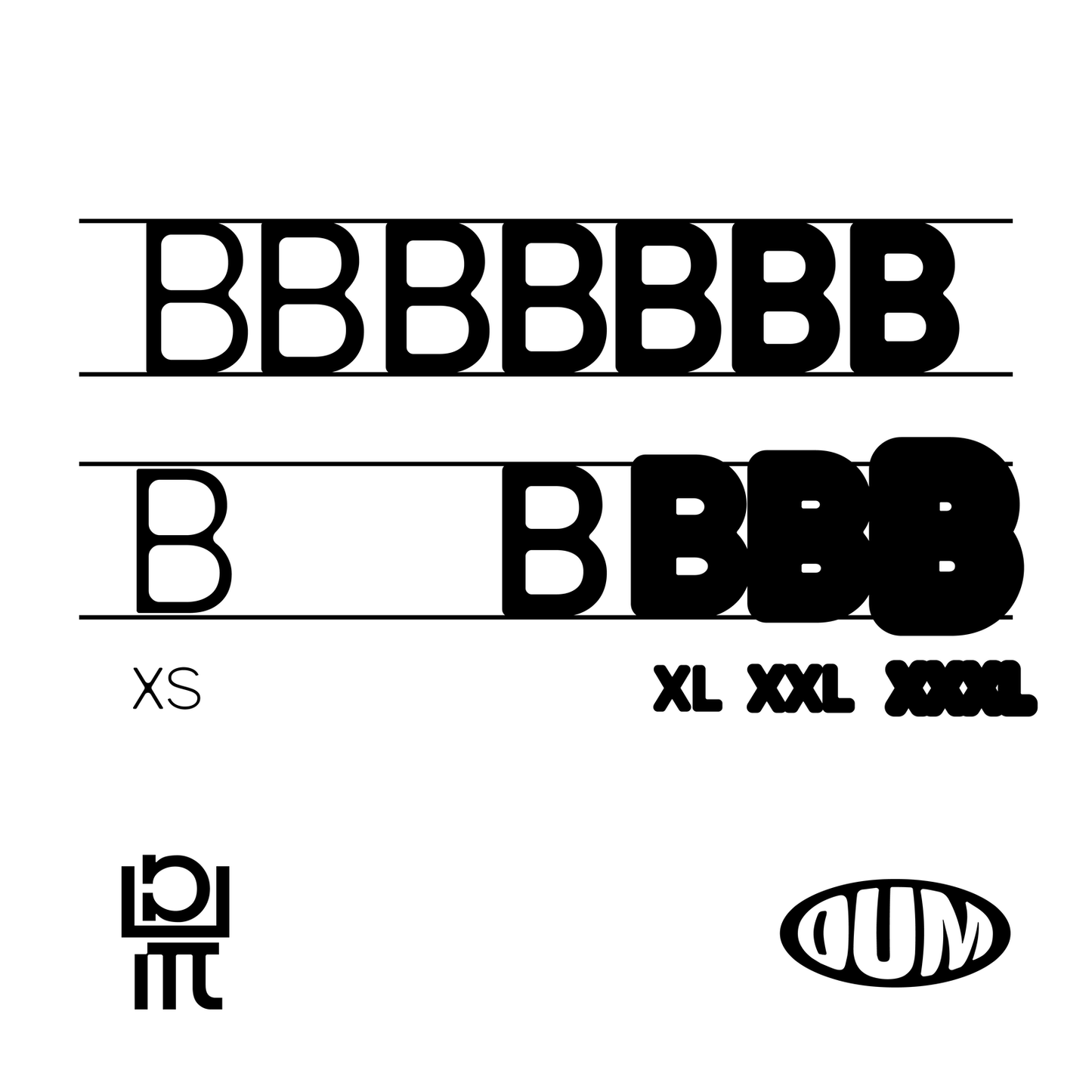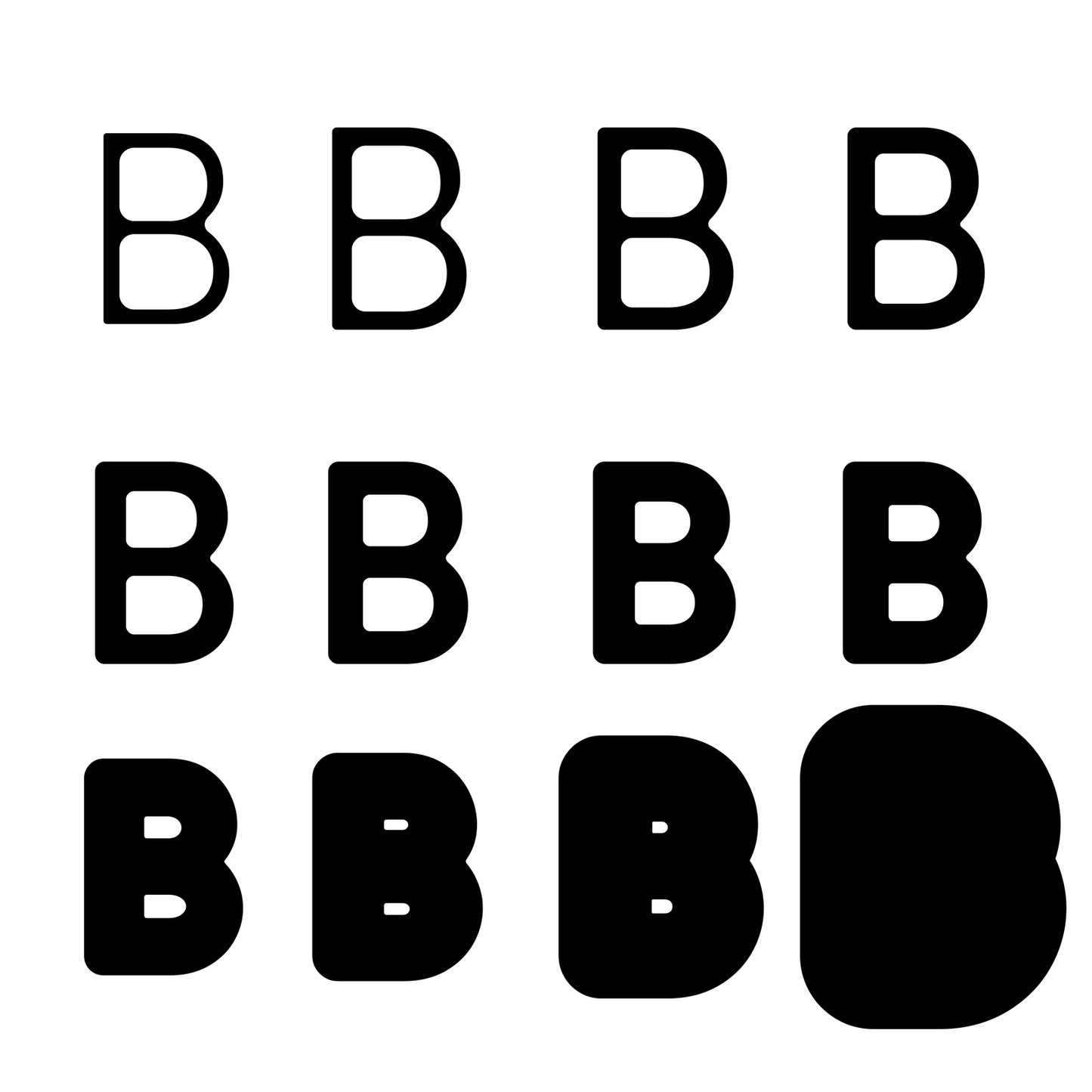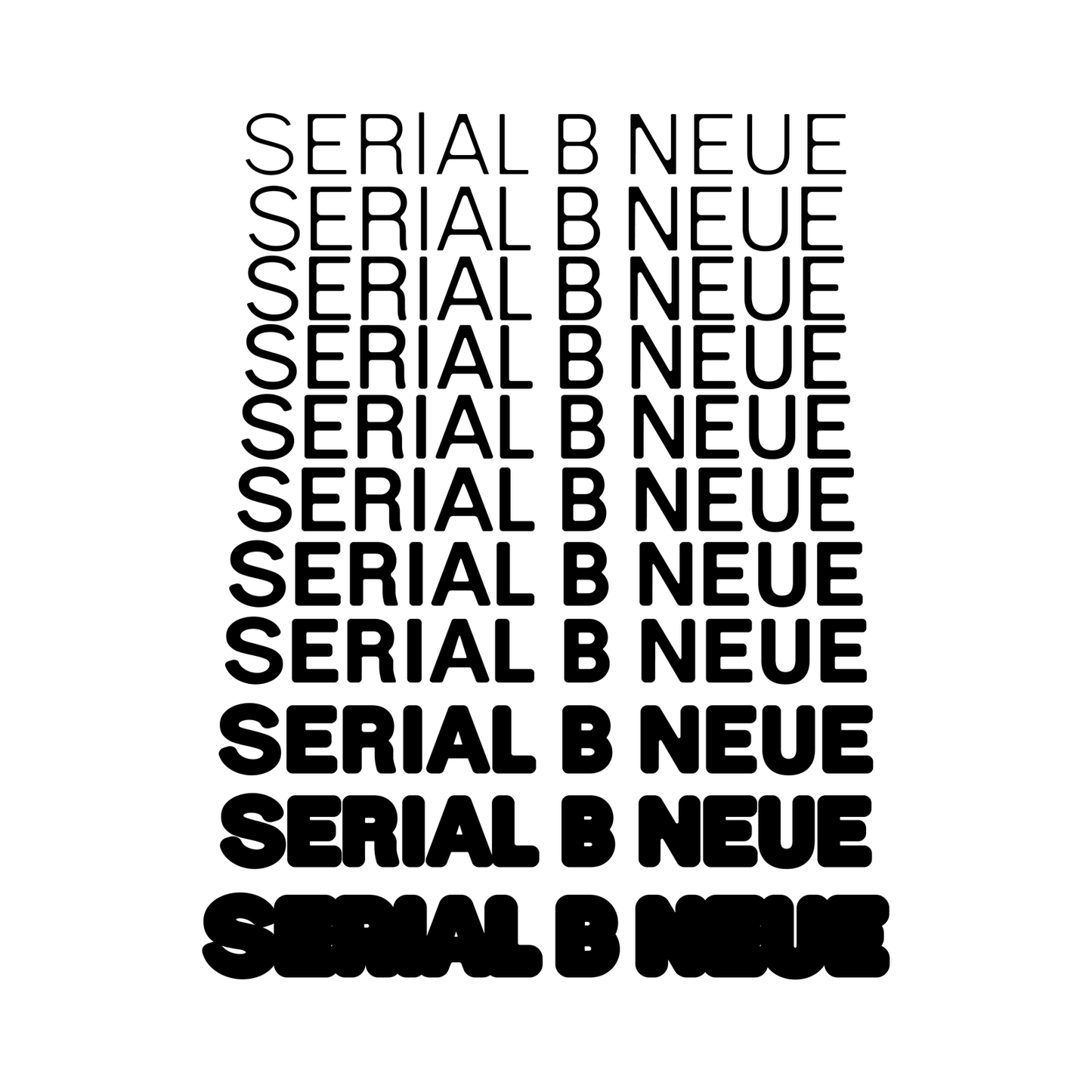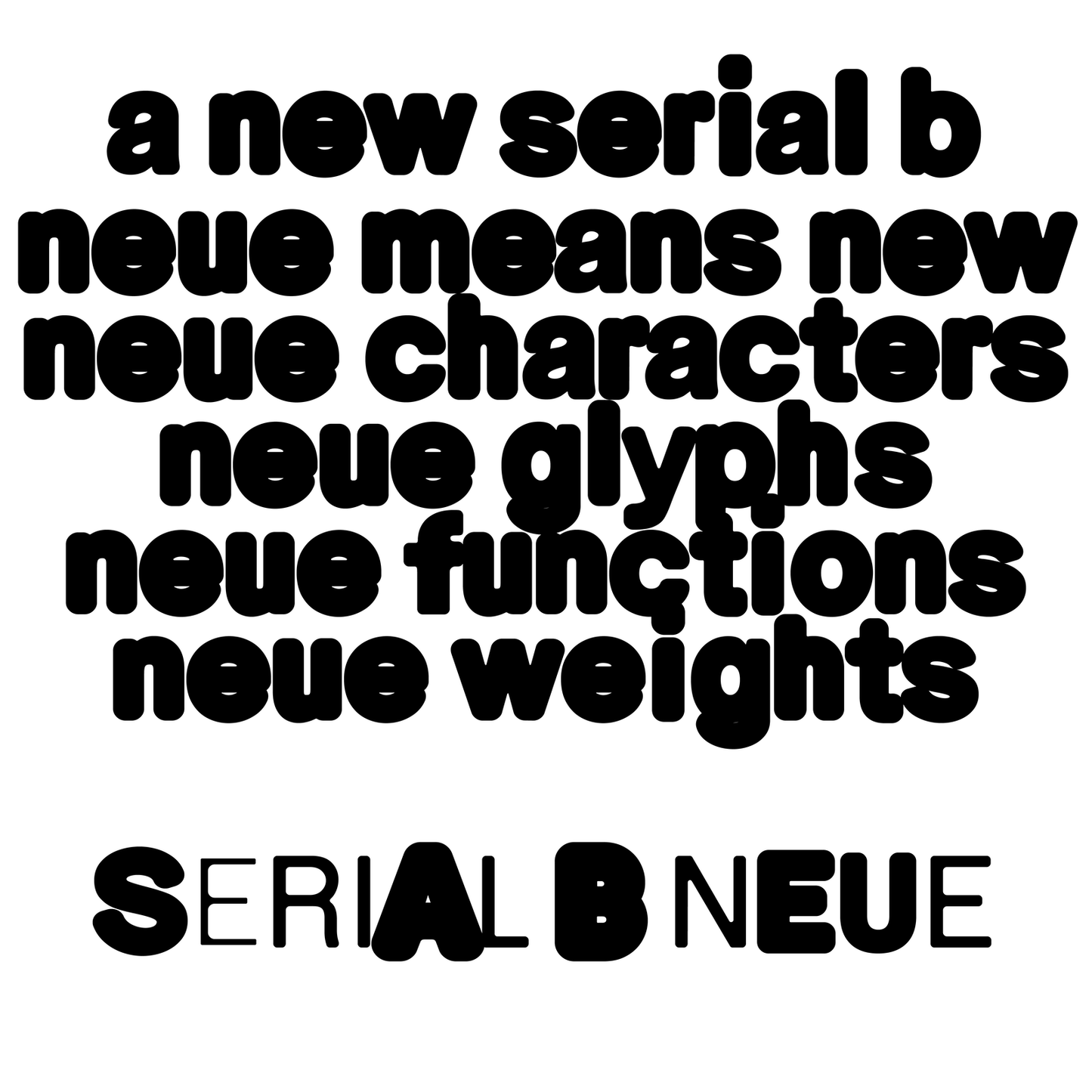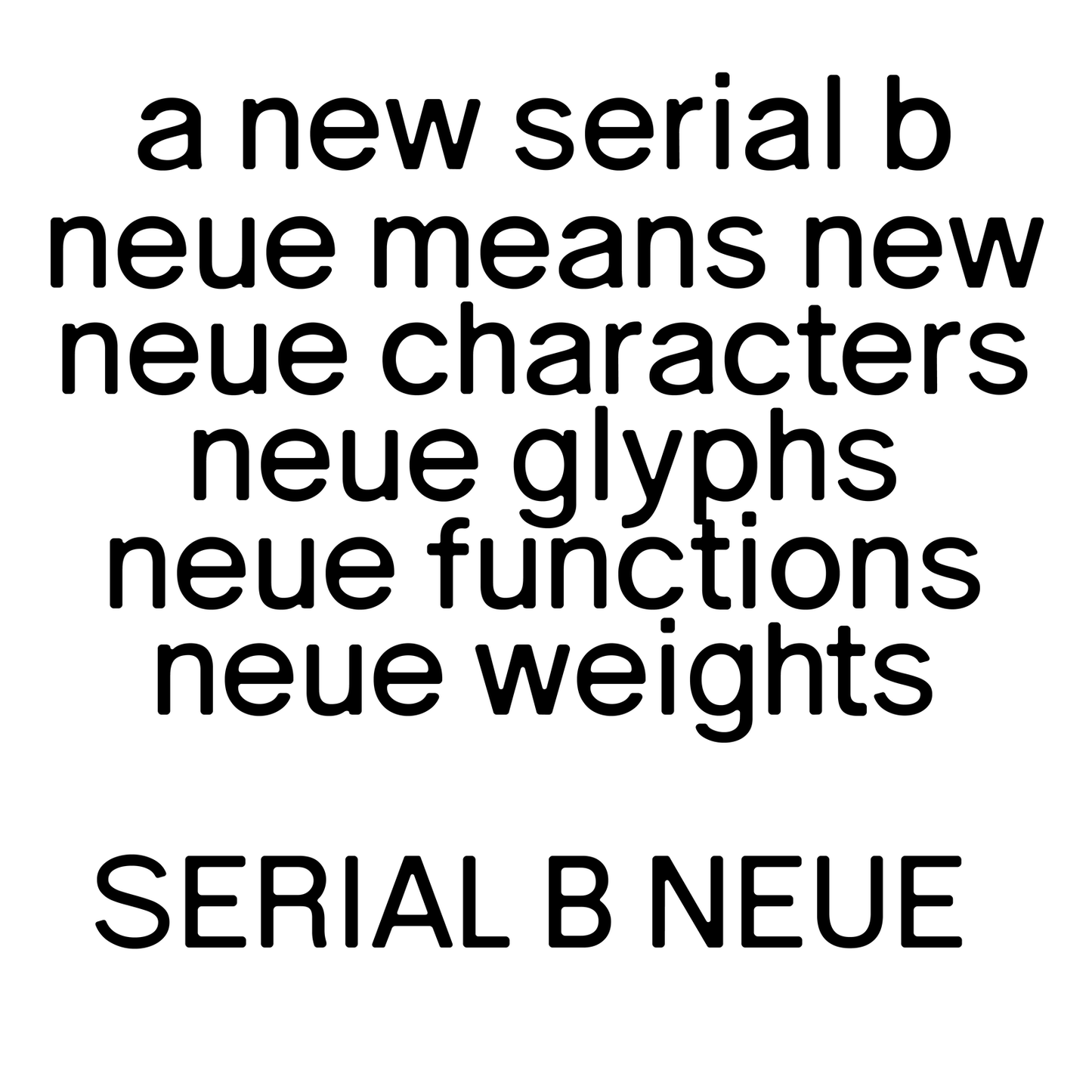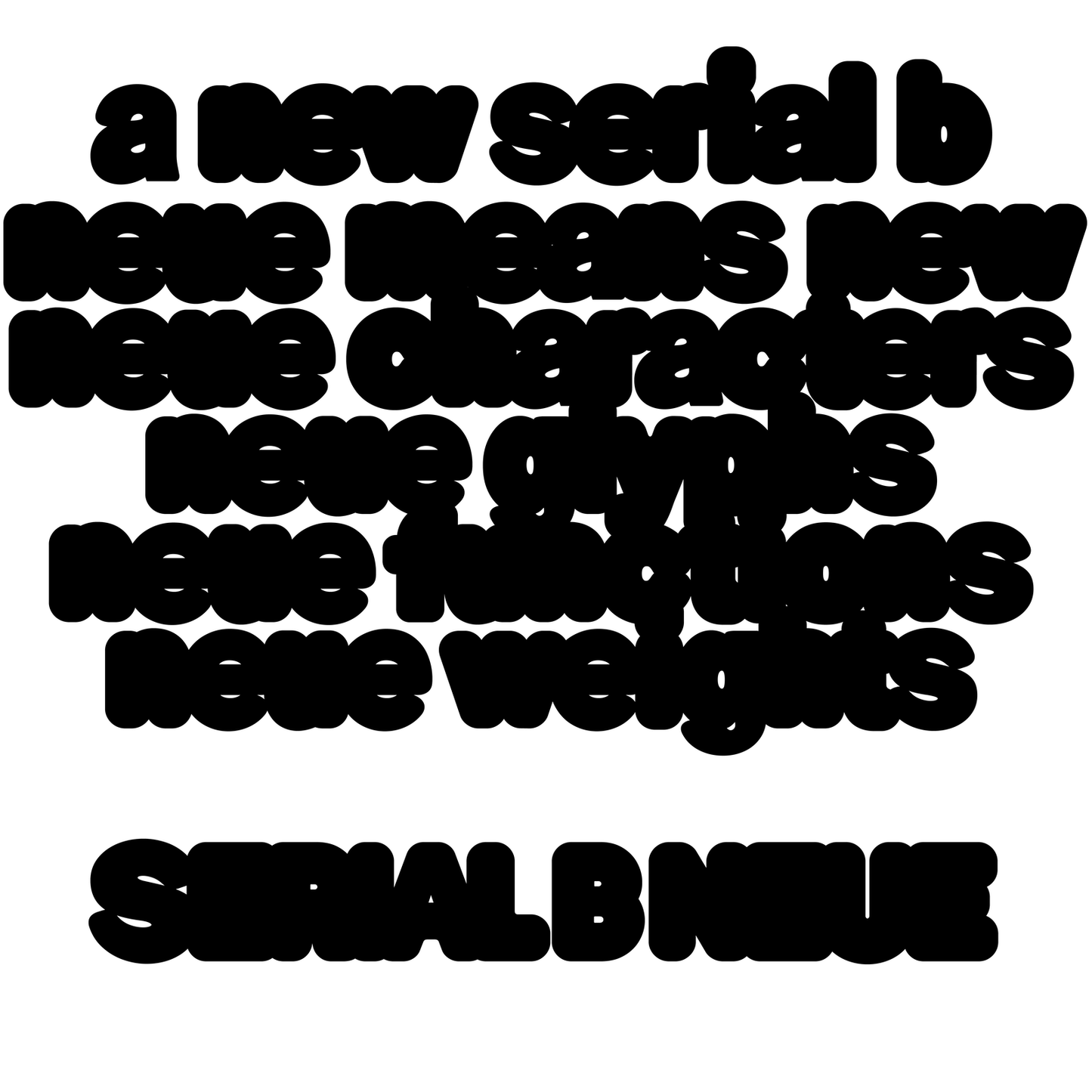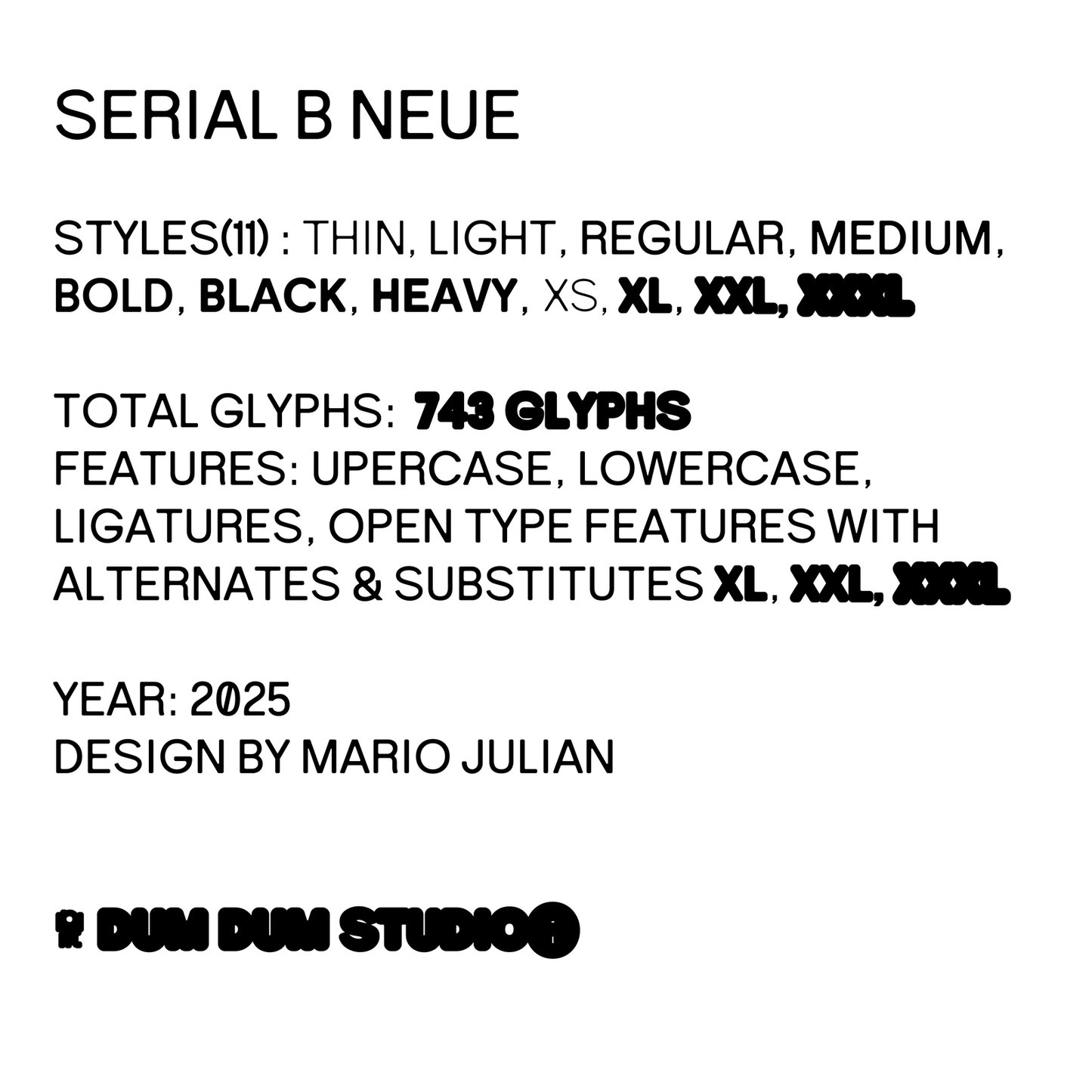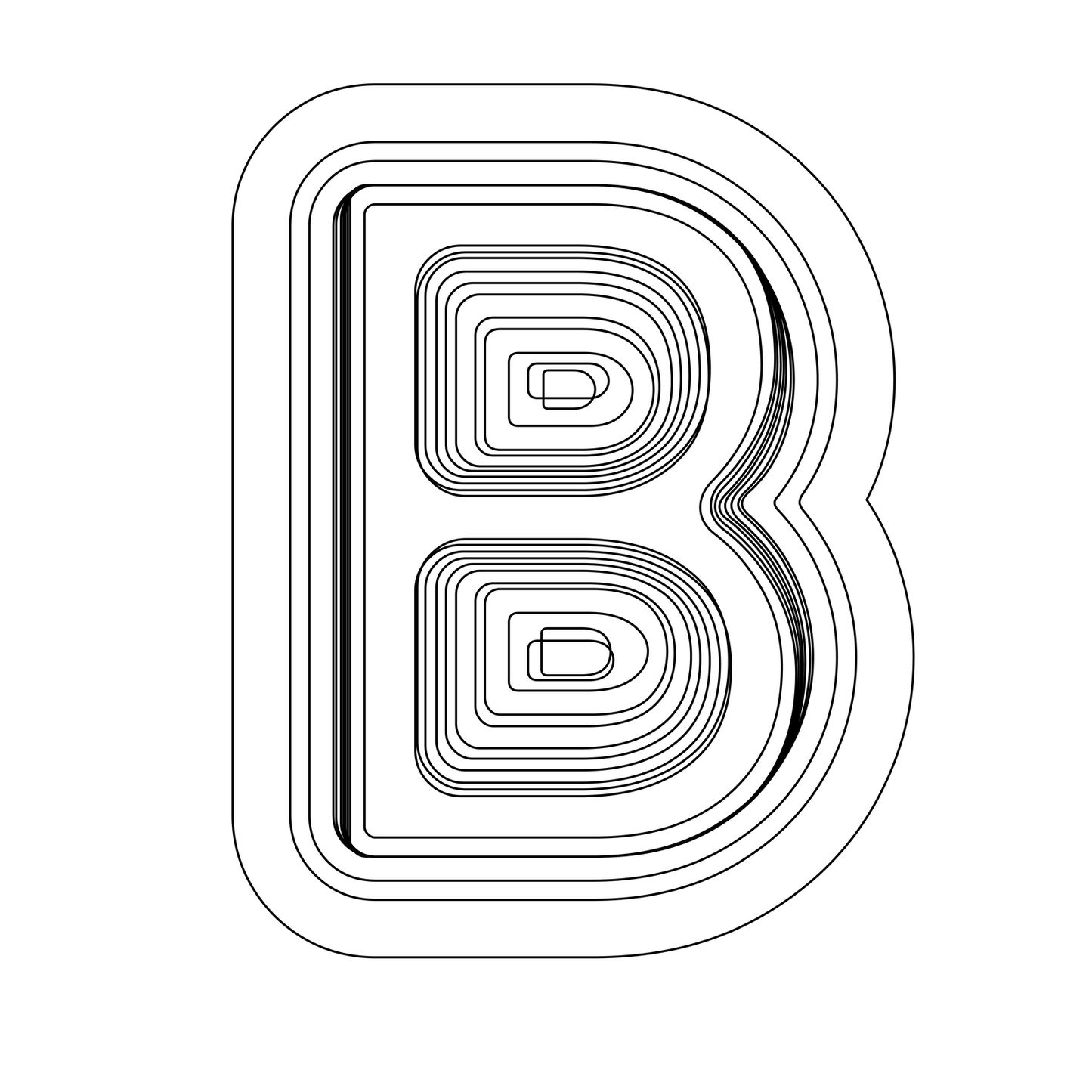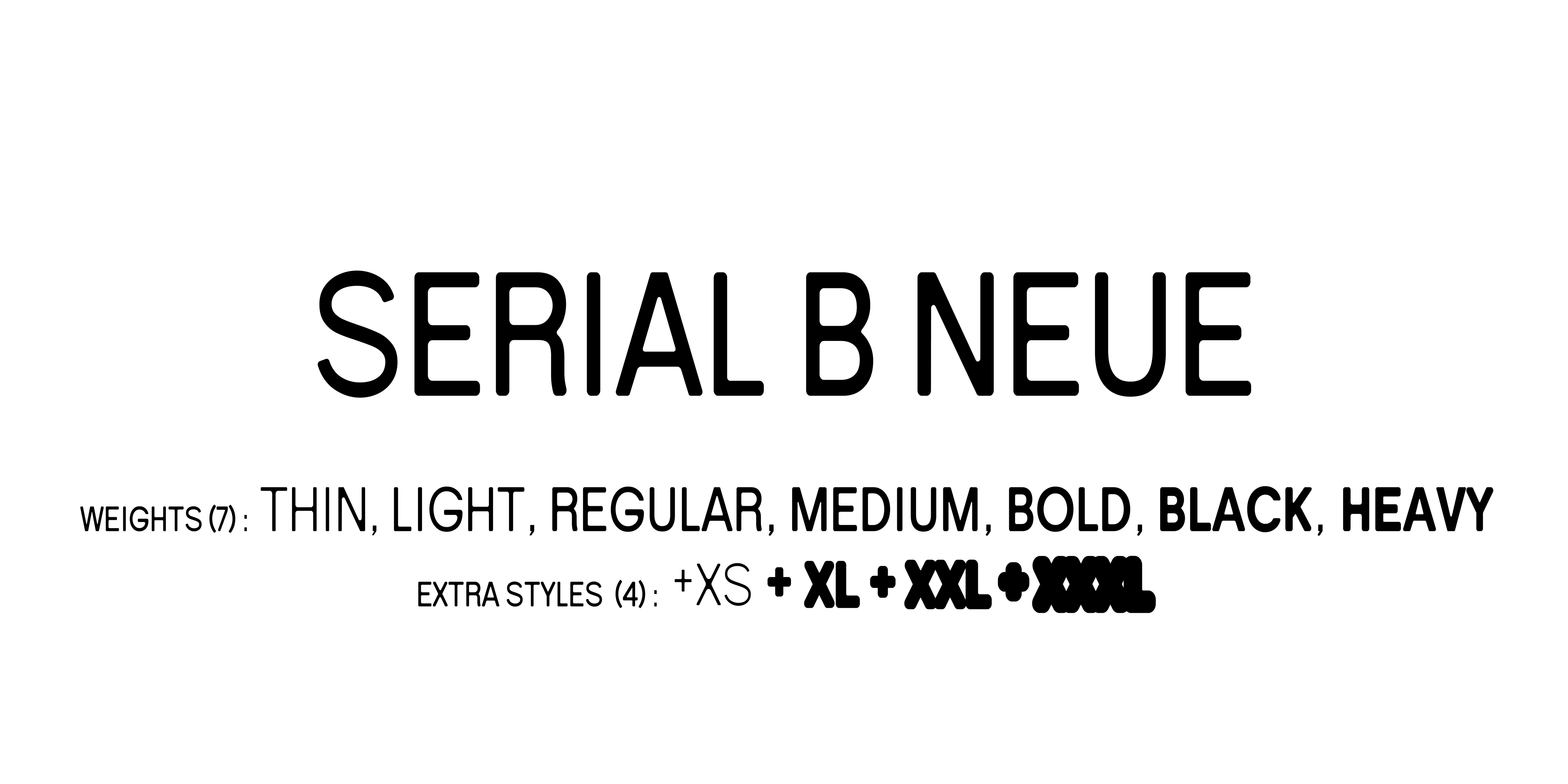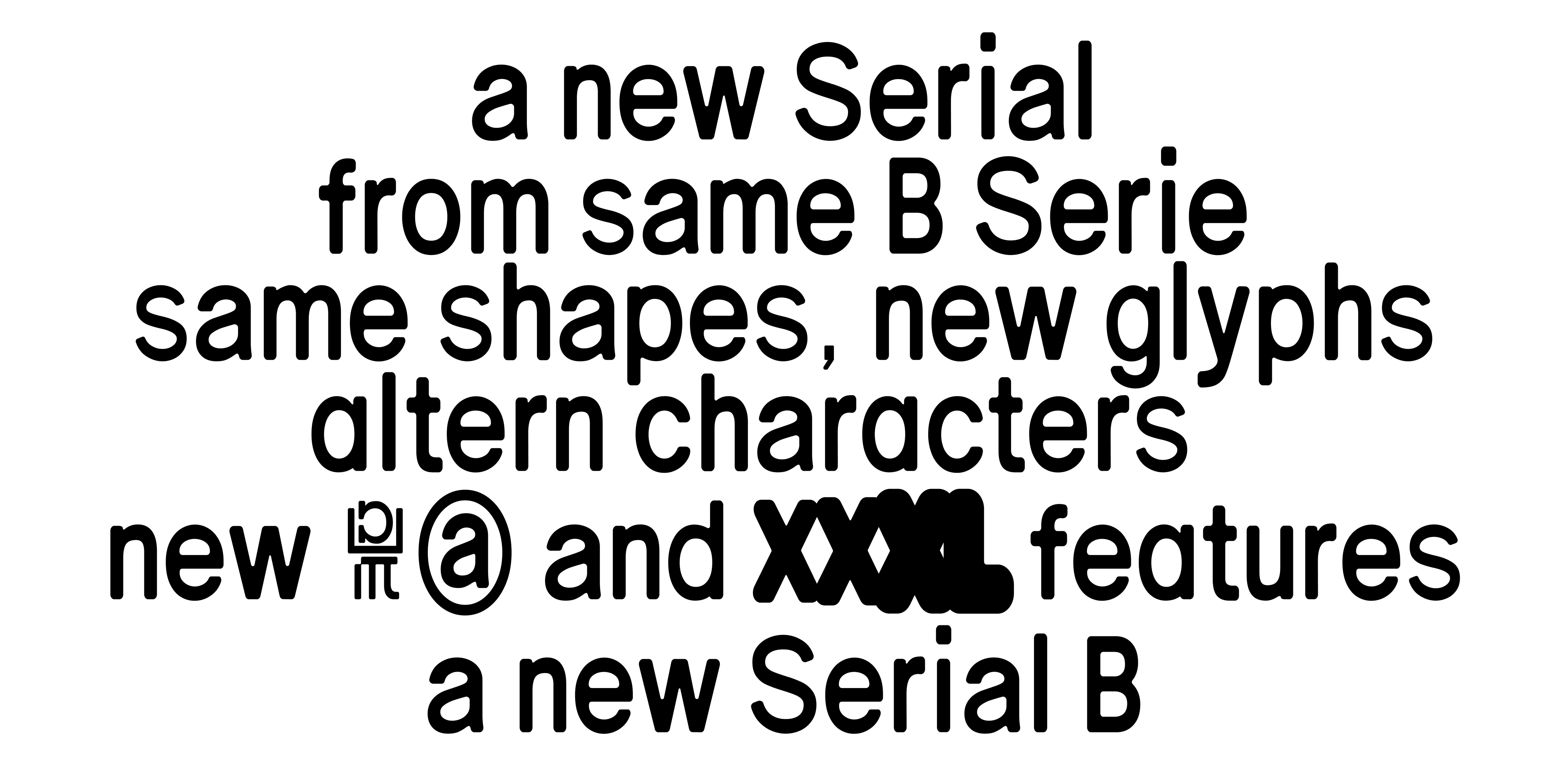
Serial B Neue
Mario Julian Gutierrez
Serial B is a modern sans-serif typeface equipped with smooth and rounded curves.
Each letter retains its own essence while following a system designed to make the reader pause at every word, making the reading experience more engaging and slightly easier for people with dyslexia. The subtle imperfections in the typeface encourage a fresh perspective on each word, balancing individuality with structure.
This typeface also embraces elements of randomness, as the outermost edges of the letters lack strict constraints, making their forms unpredictable and fluid.
— 11 STYLES
— TOTAL GLYPHS: 743 GLYPHS
— LIGATURES
— ALTERNATES AND SUBSTITUTES